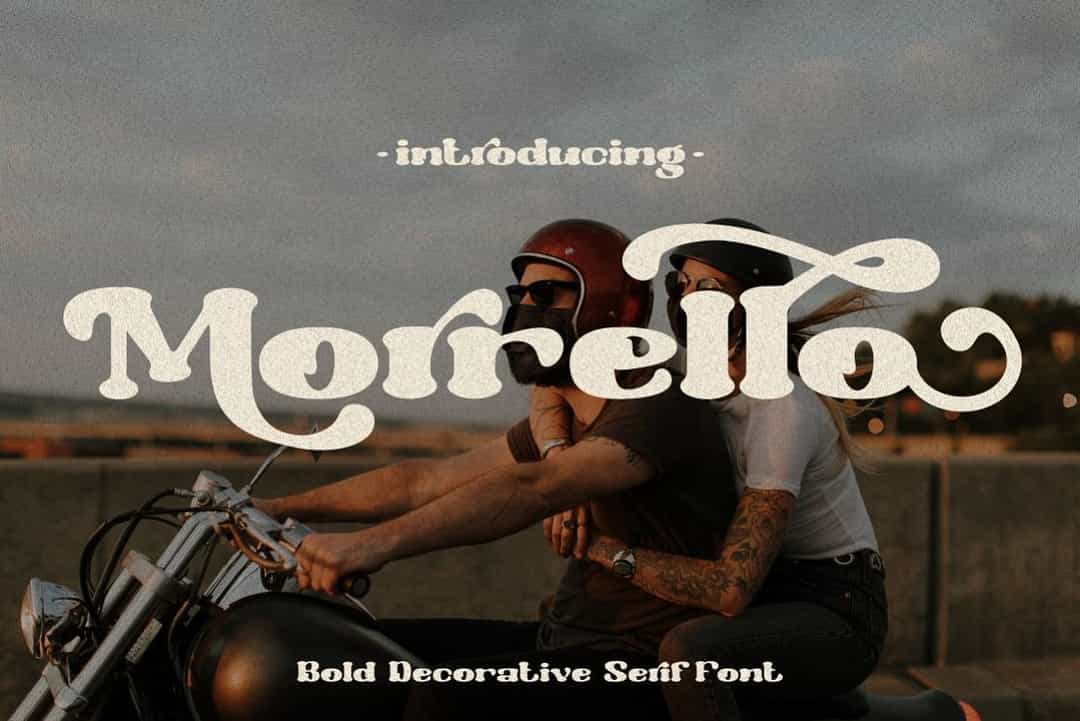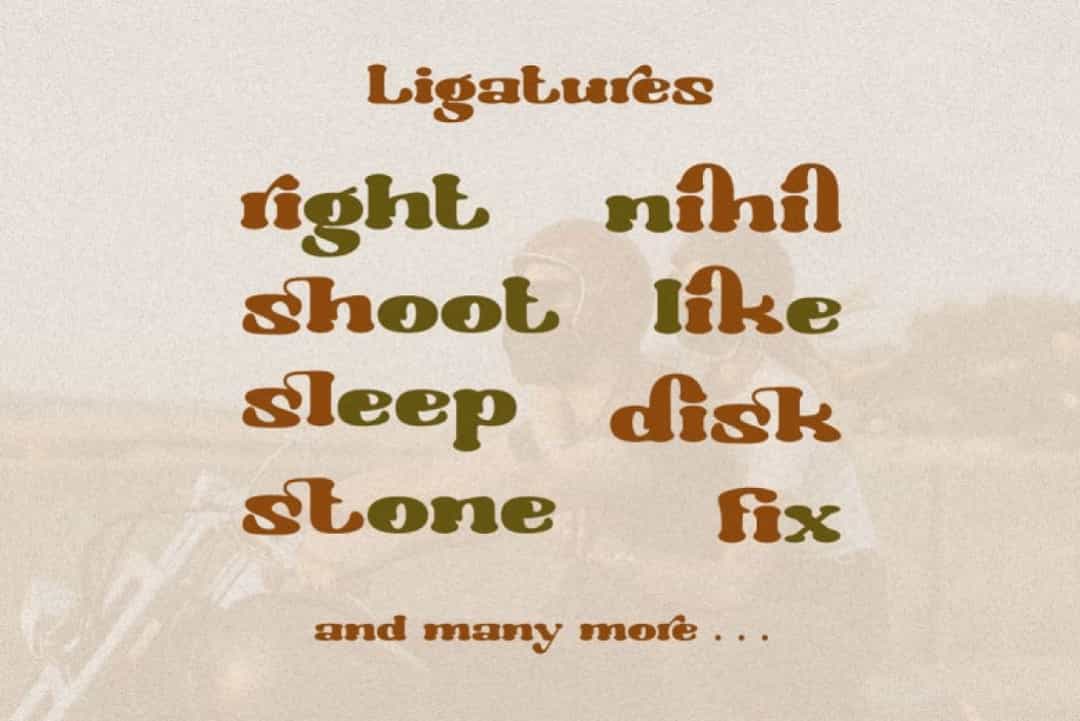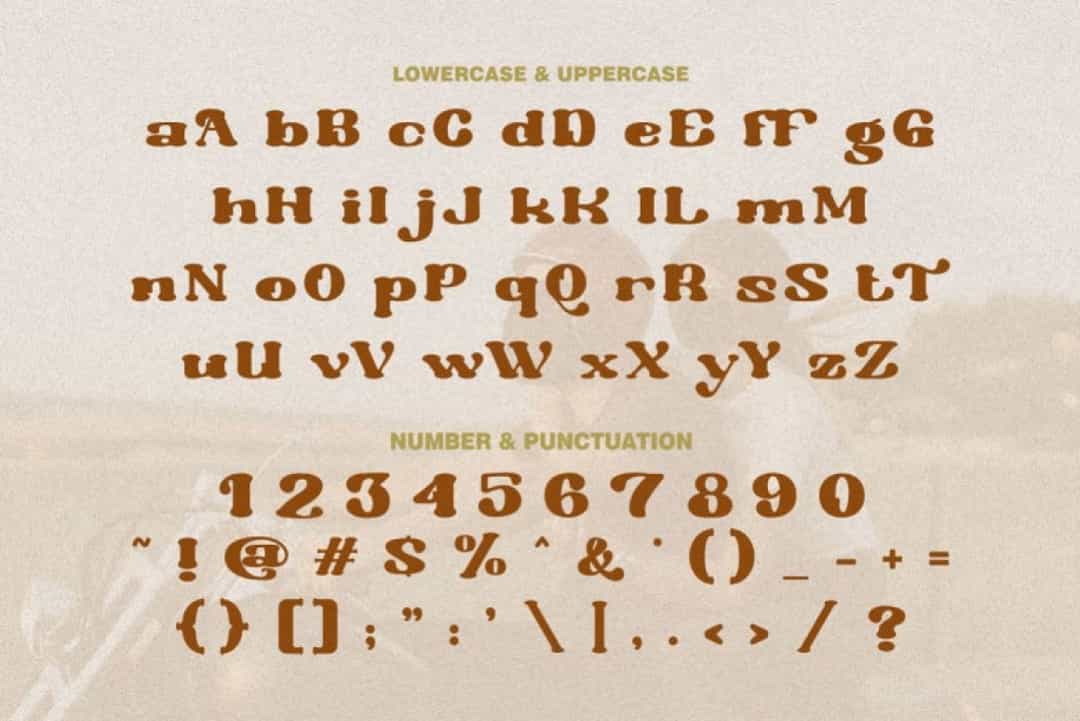
Morrello is a stunning vintage decorative serif font with stunning ligatures, numerous alternative glyphs, multilingual support and fun modern features such as its sleek lines. Fun, lively modern characteristics combined with vintage edge make Morrello one of the most versatile fonts available, suitable for use both small and large sizes and in 70s and 60s design projects.